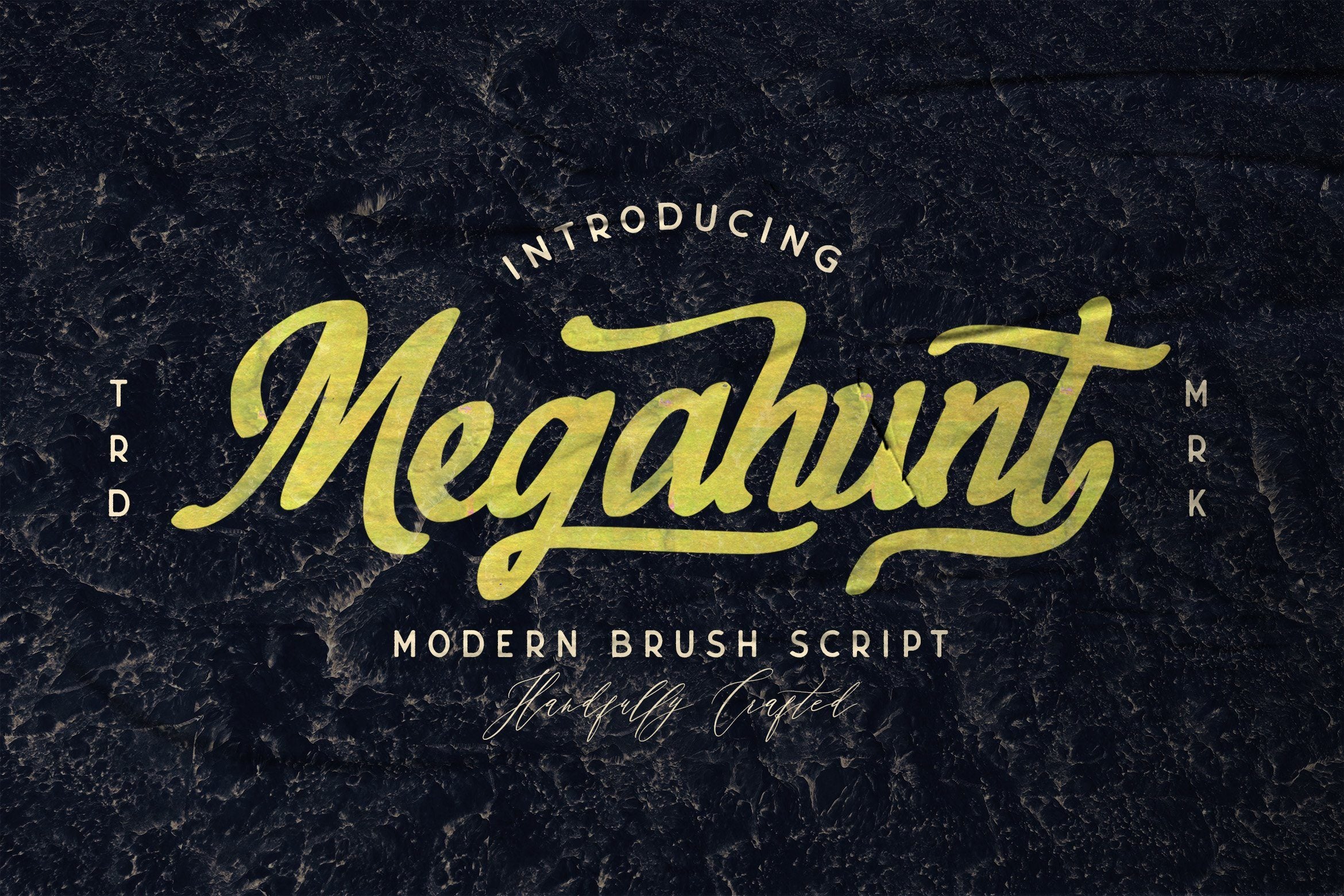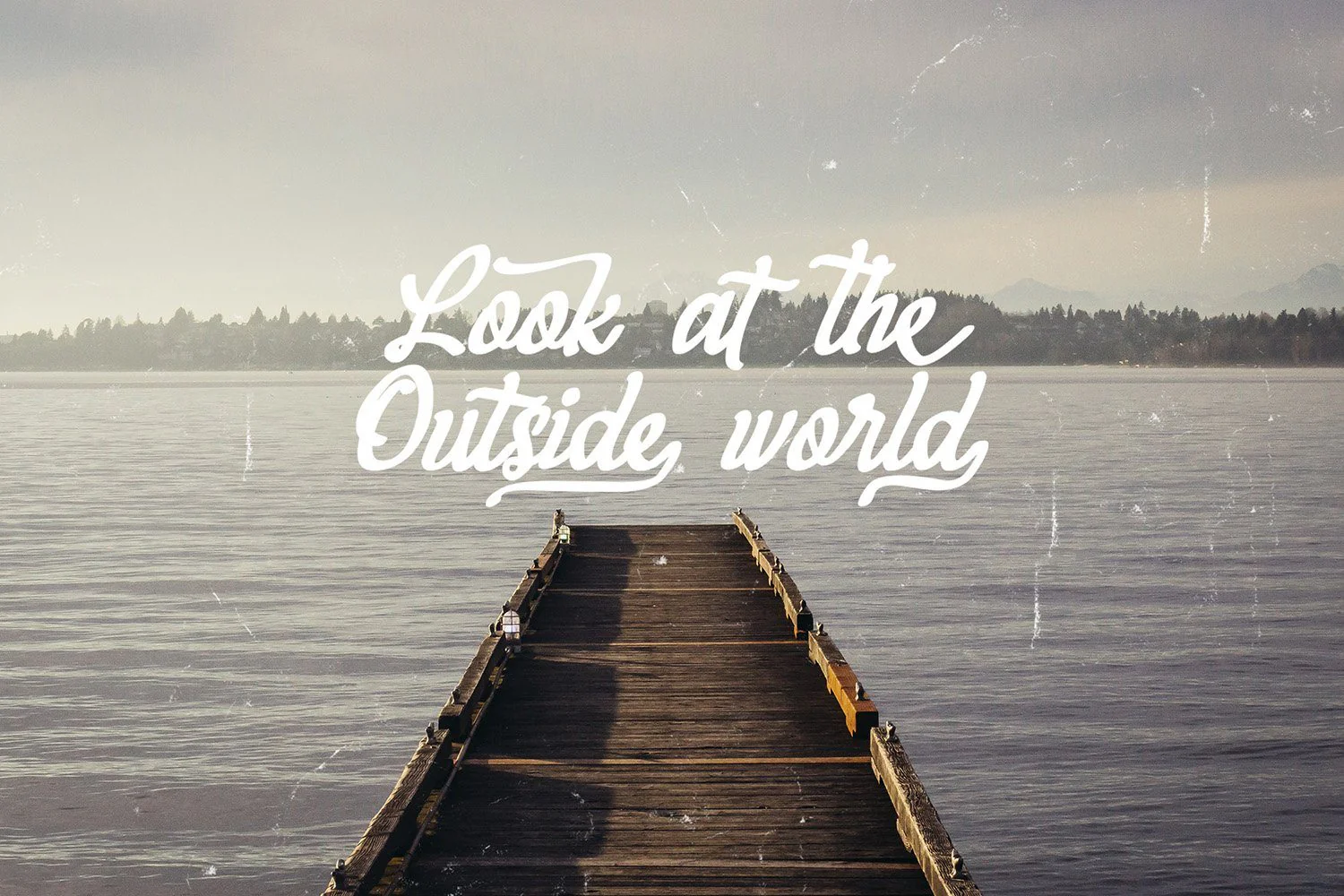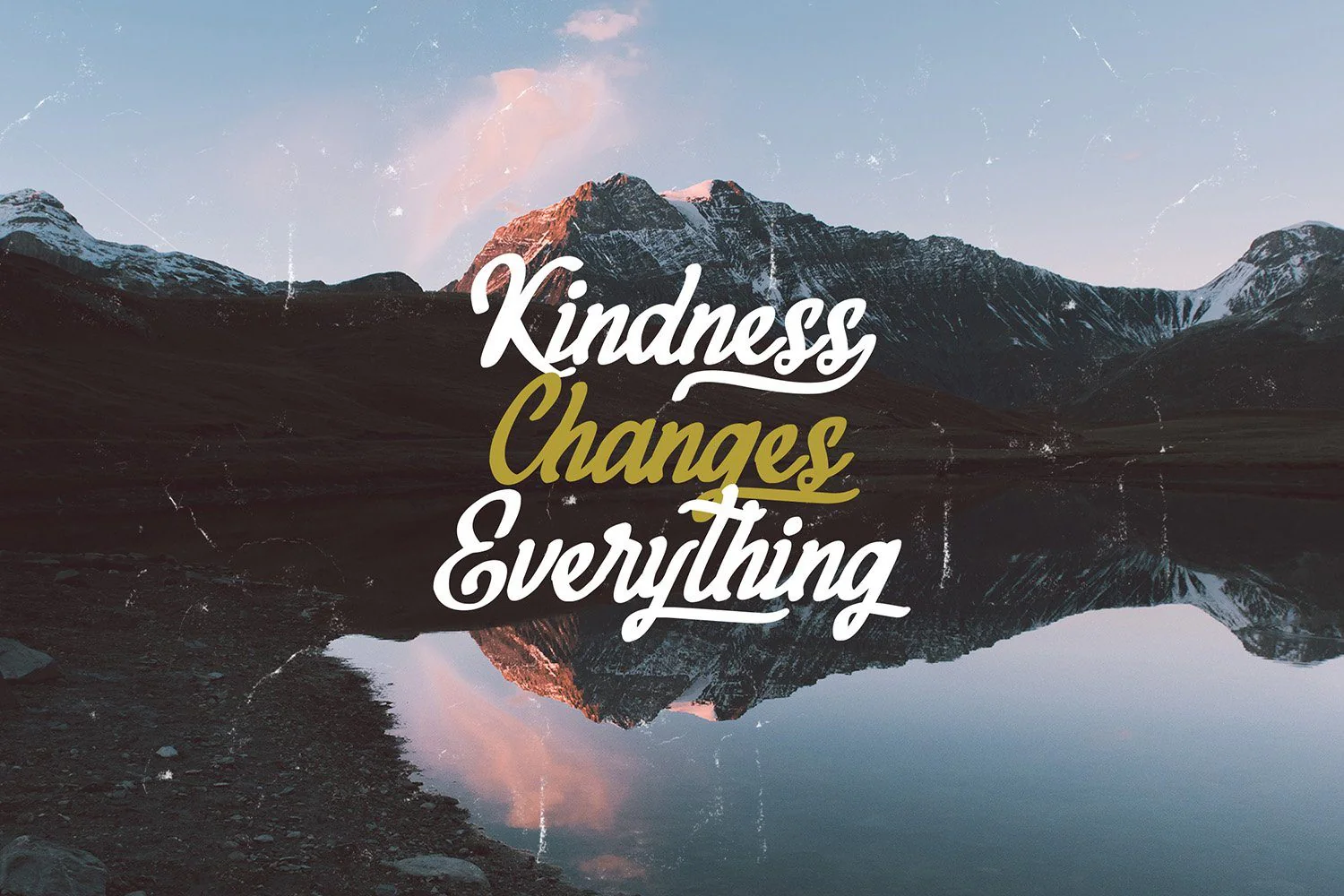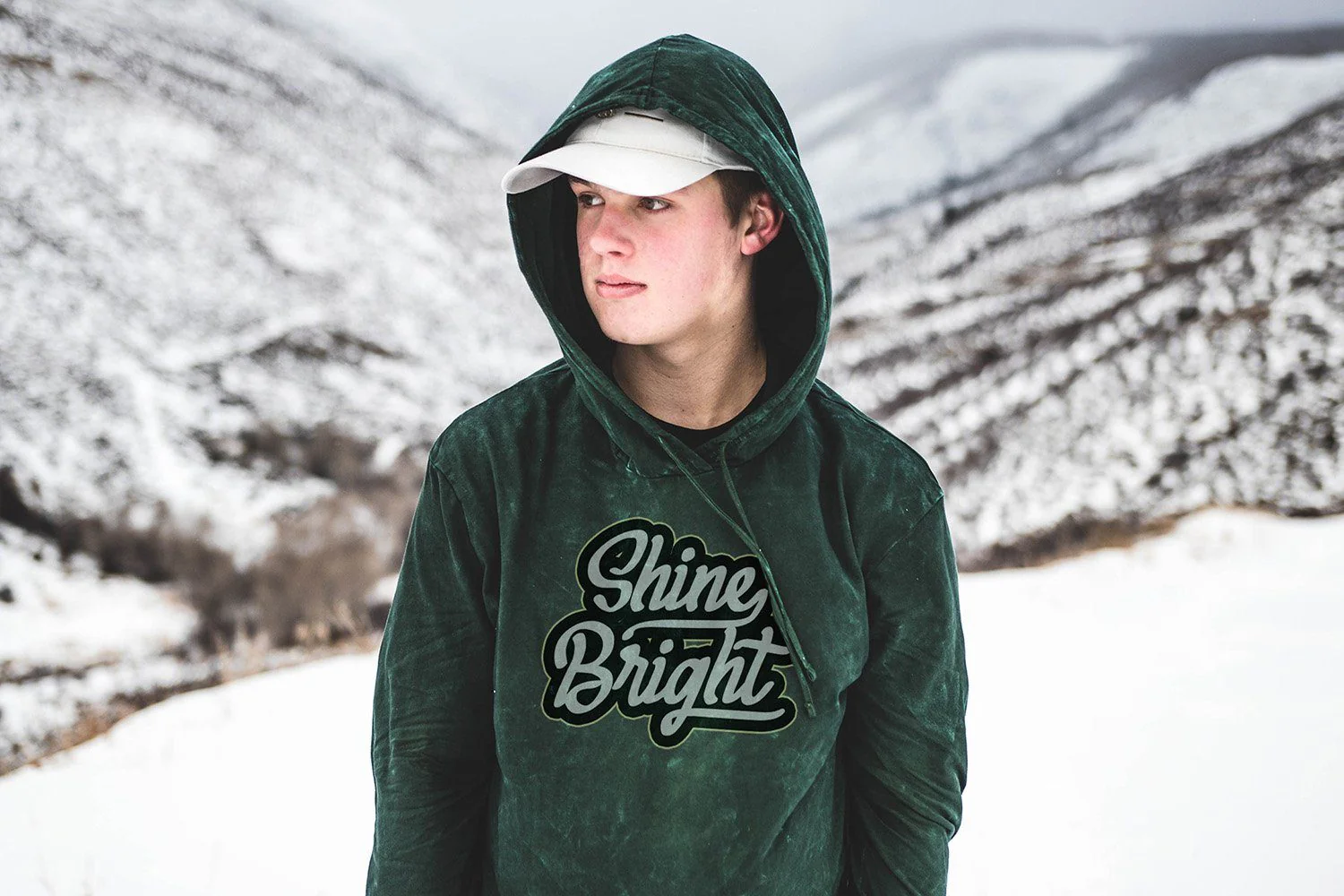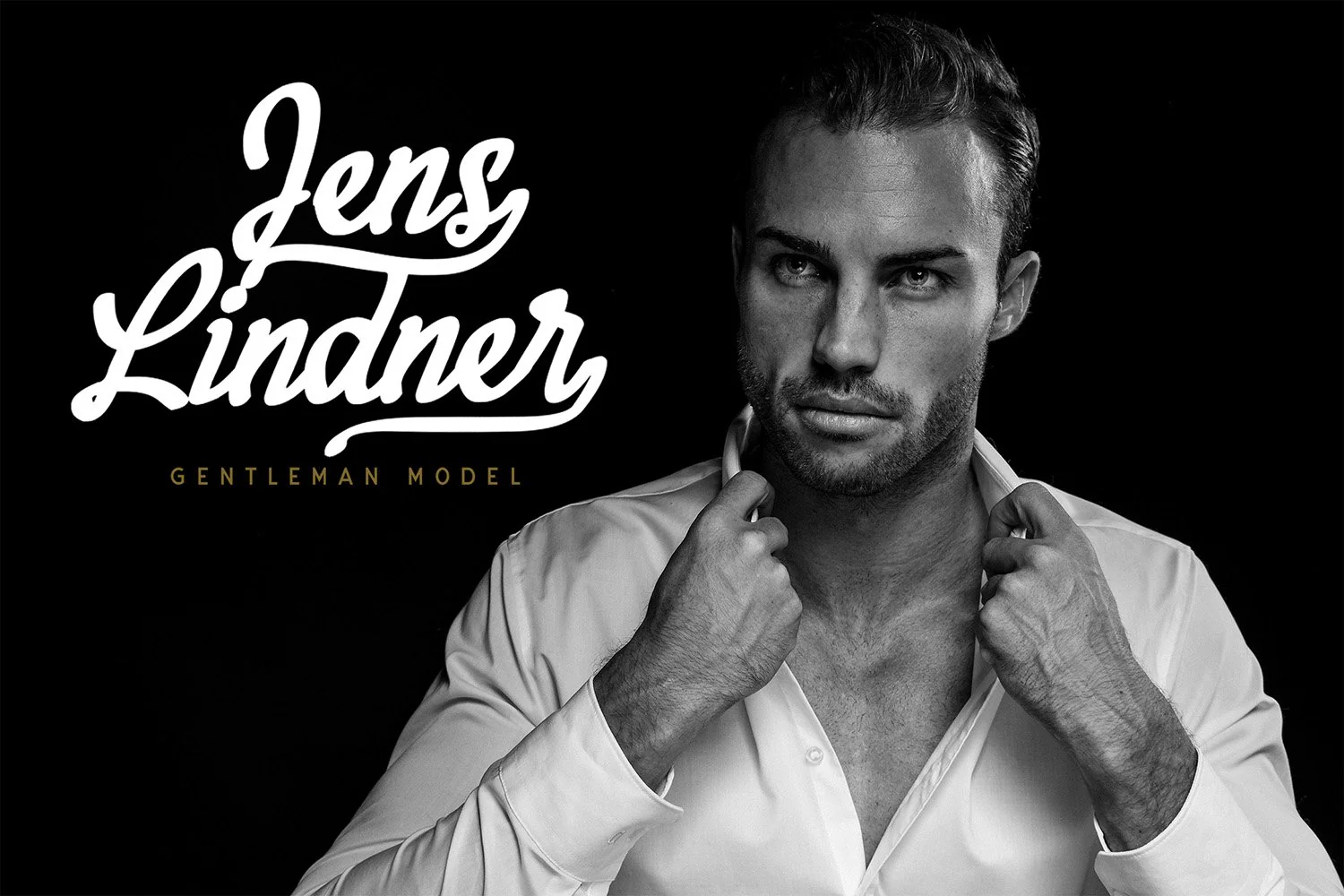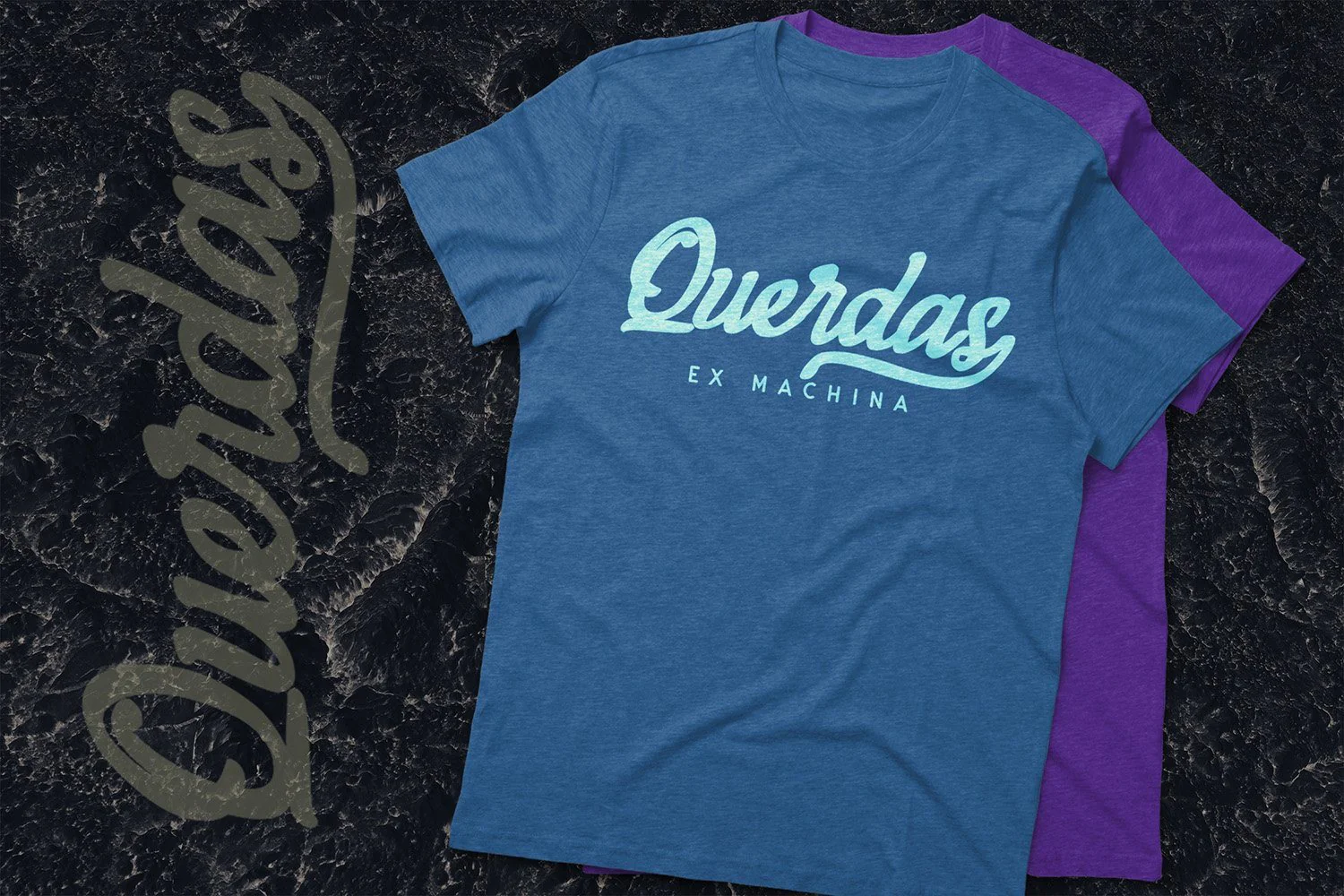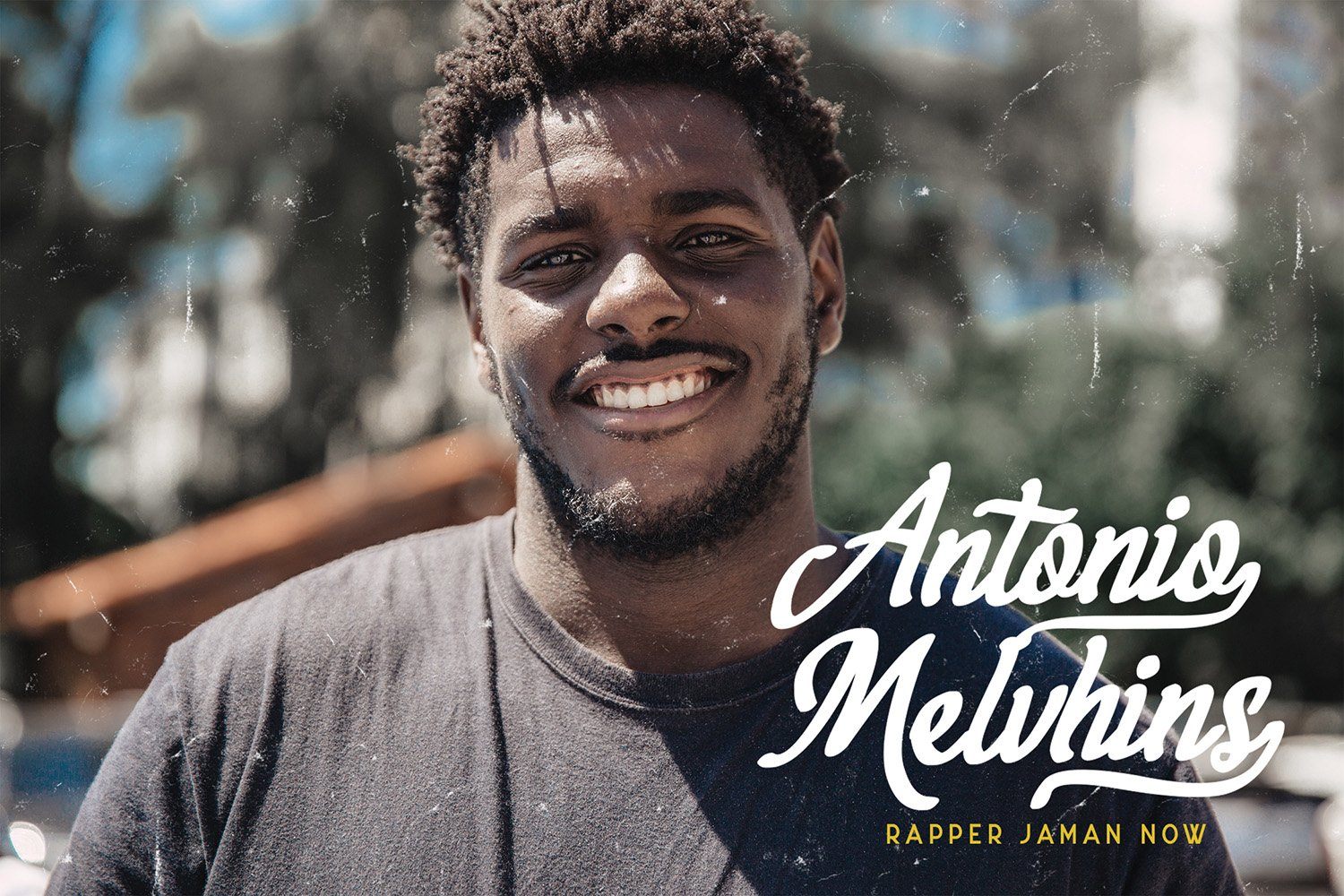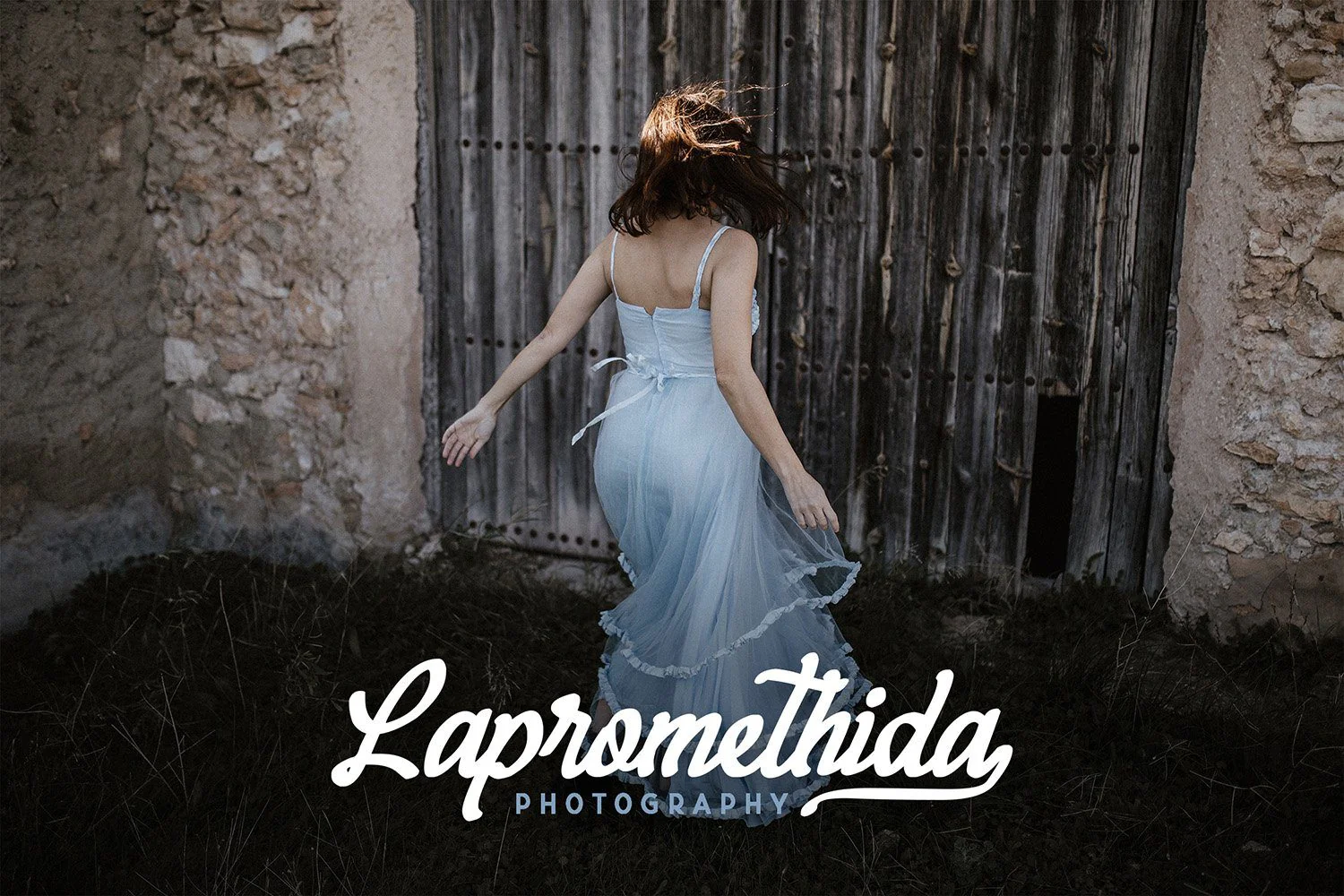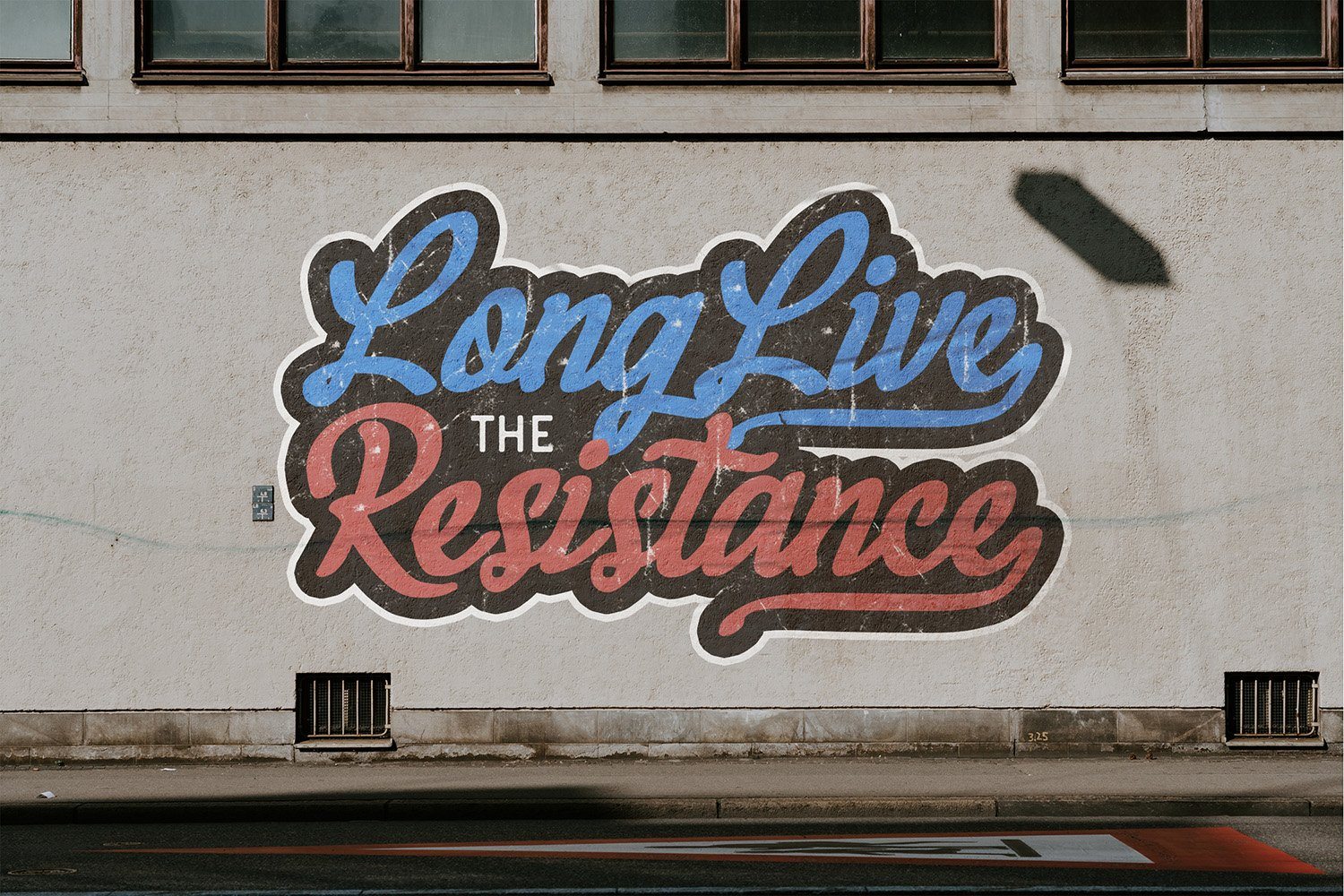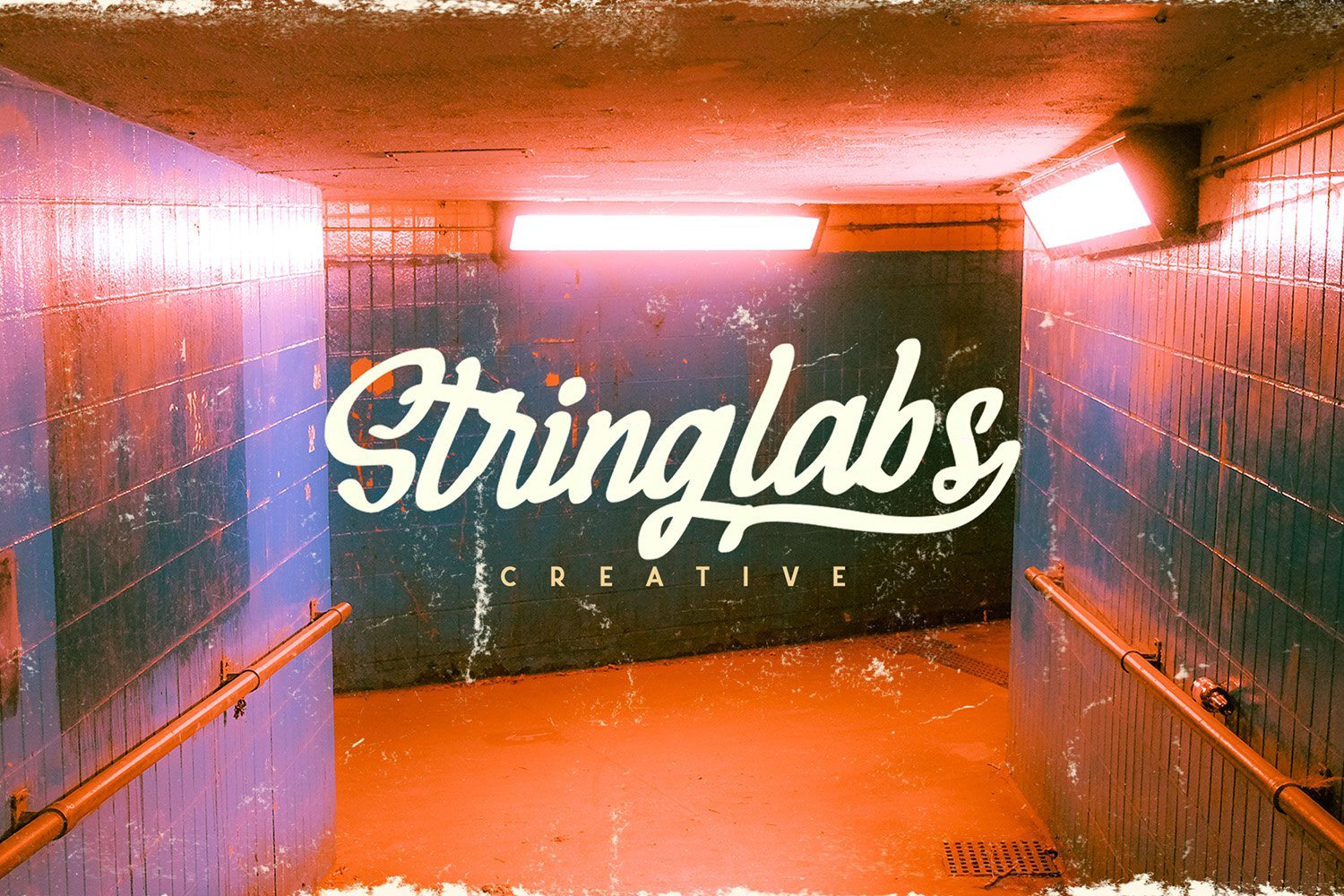
Megahunt - Brush Script Font
Introducing Megahunt - Brush Script Font
Megahunt is a Script Font with Modern Brush Style. The Megahunt font made with digital brush pen strokes that making this font look authentic. This font is perfect for fashion brand, wedding invitation, business card, logo brand, signature, and then calligraphy.
This Font contains Classy, Elegant, Creative, Cool and has a Unique Concept.
Introducing Megahunt - Brush Script Font
Megahunt is a Script Font with Modern Brush Style. The Megahunt font made with digital brush pen strokes that making this font look authentic. This font is perfect for fashion brand, wedding invitation, business card, logo brand, signature, and then calligraphy.
This Font contains Classy, Elegant, Creative, Cool and has a Unique Concept.